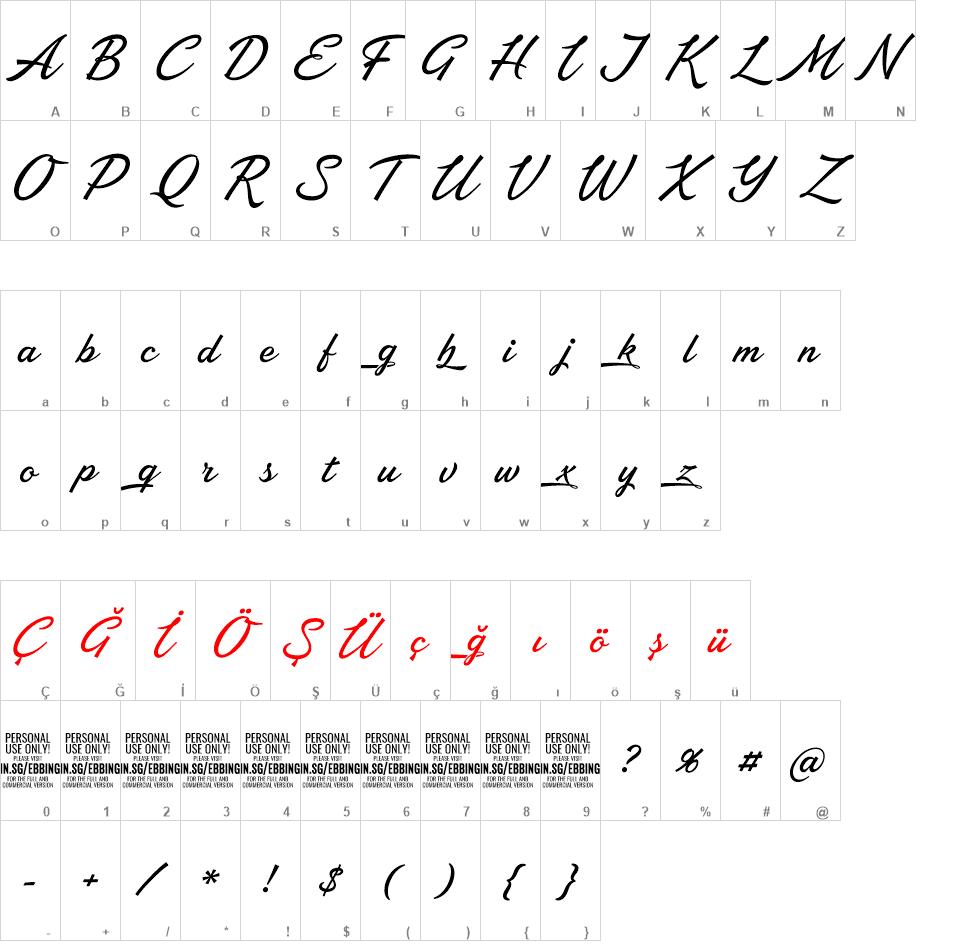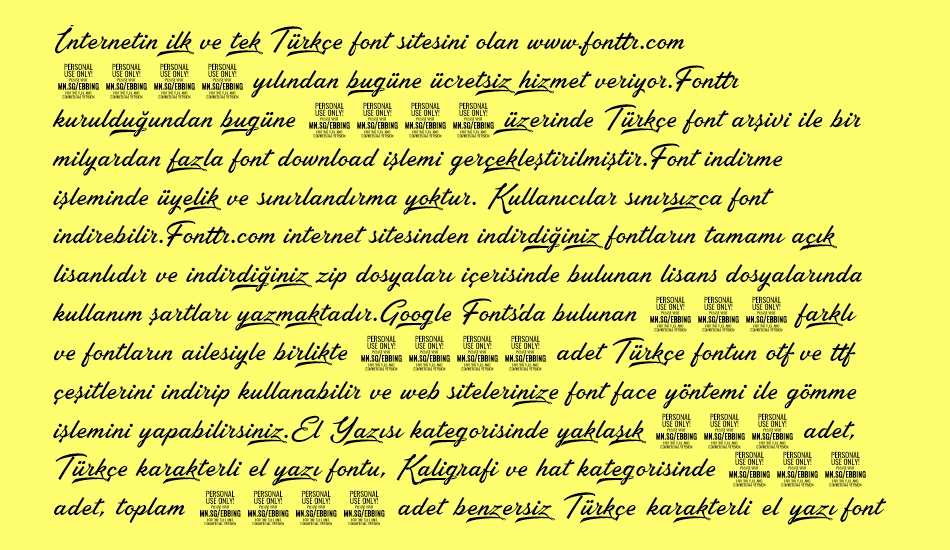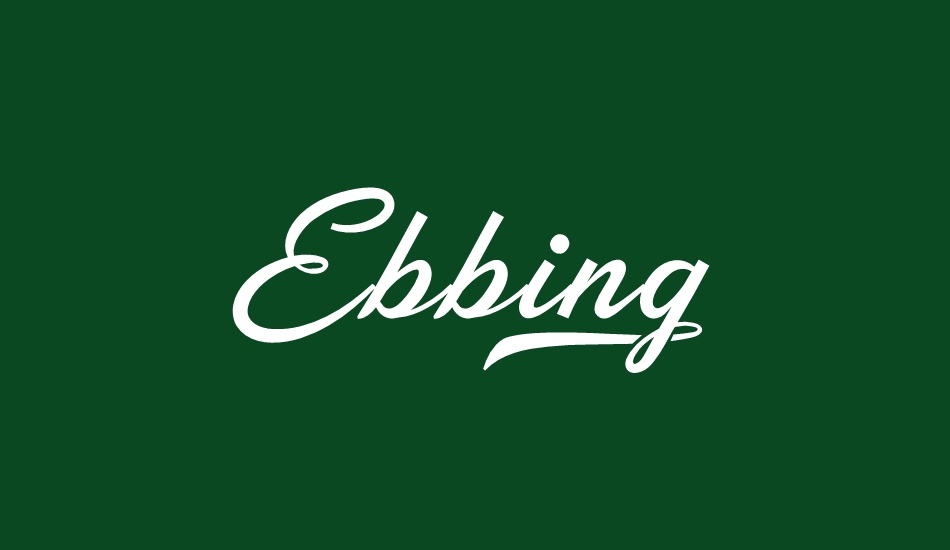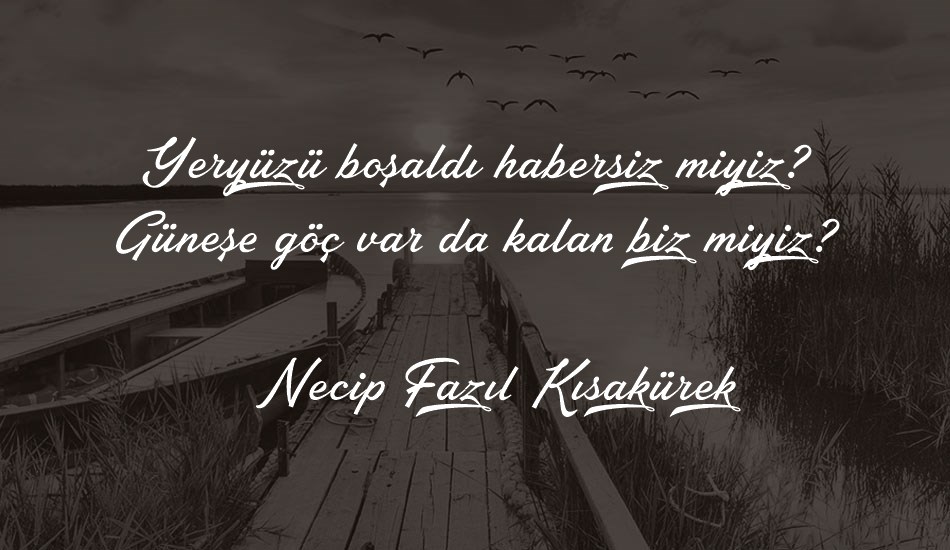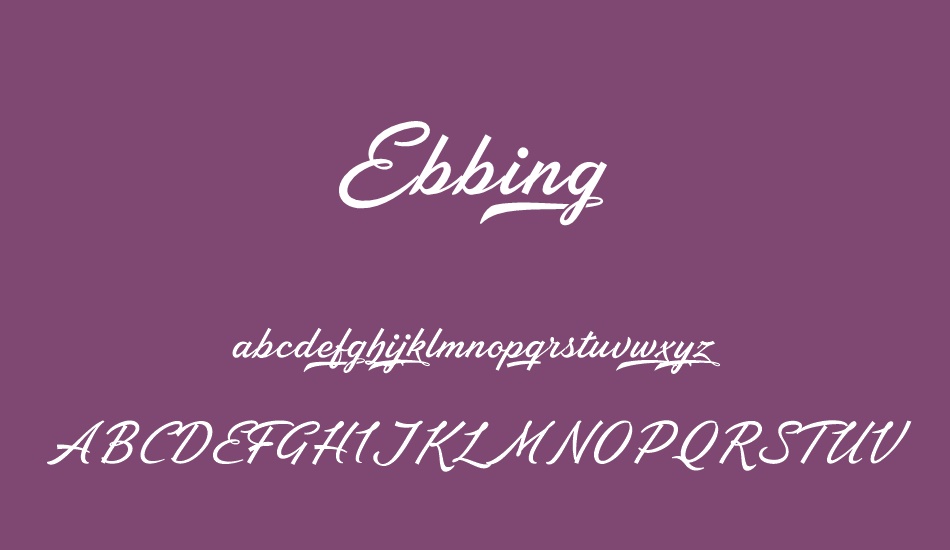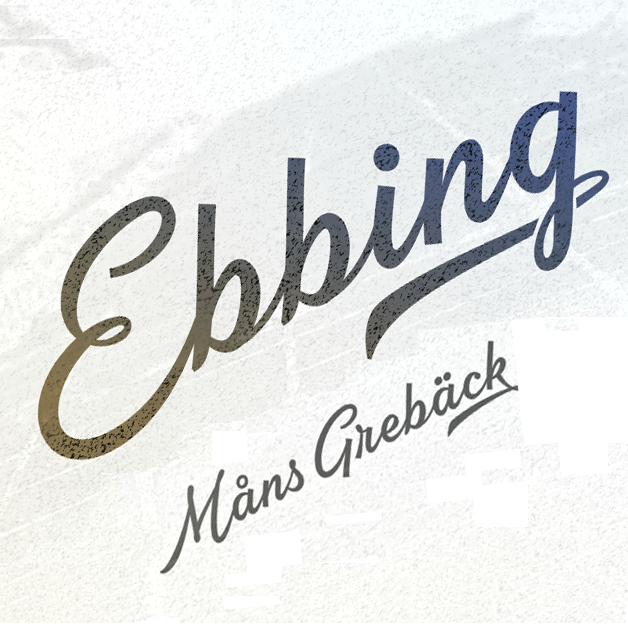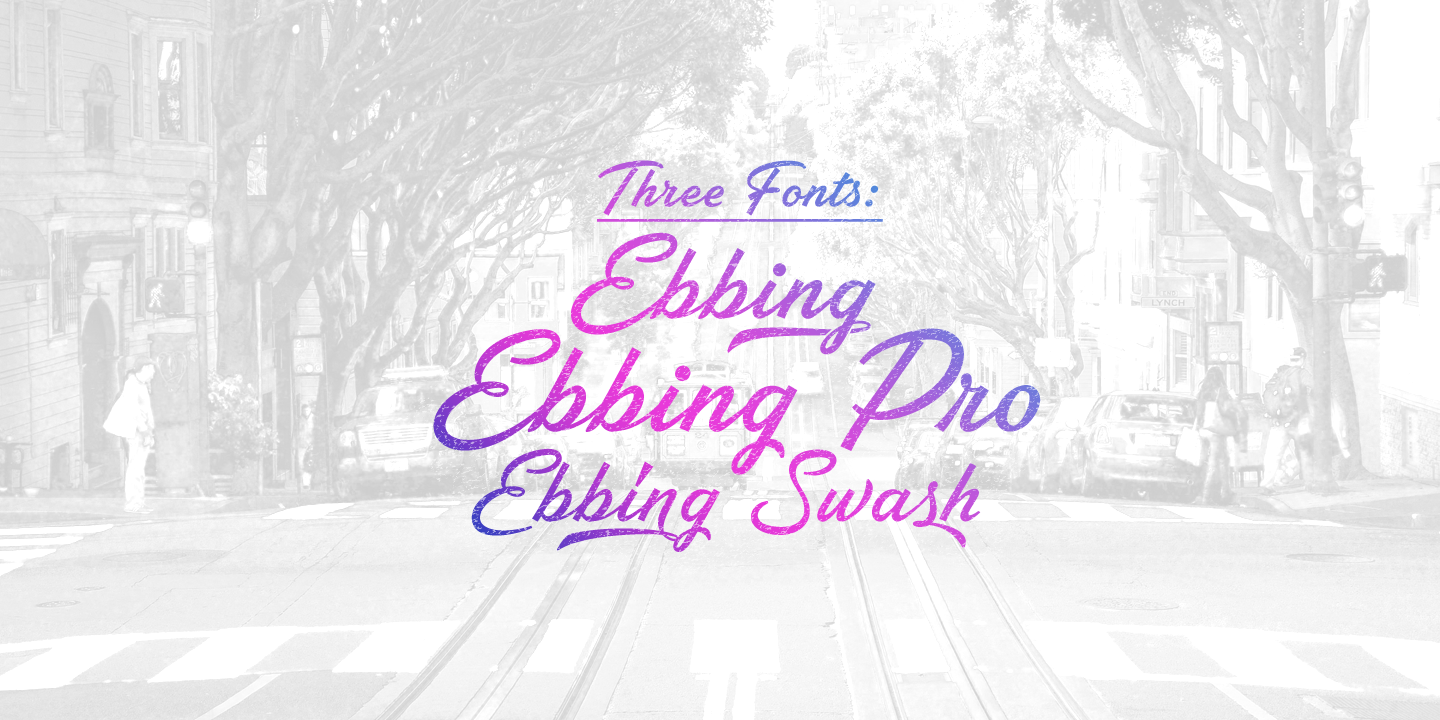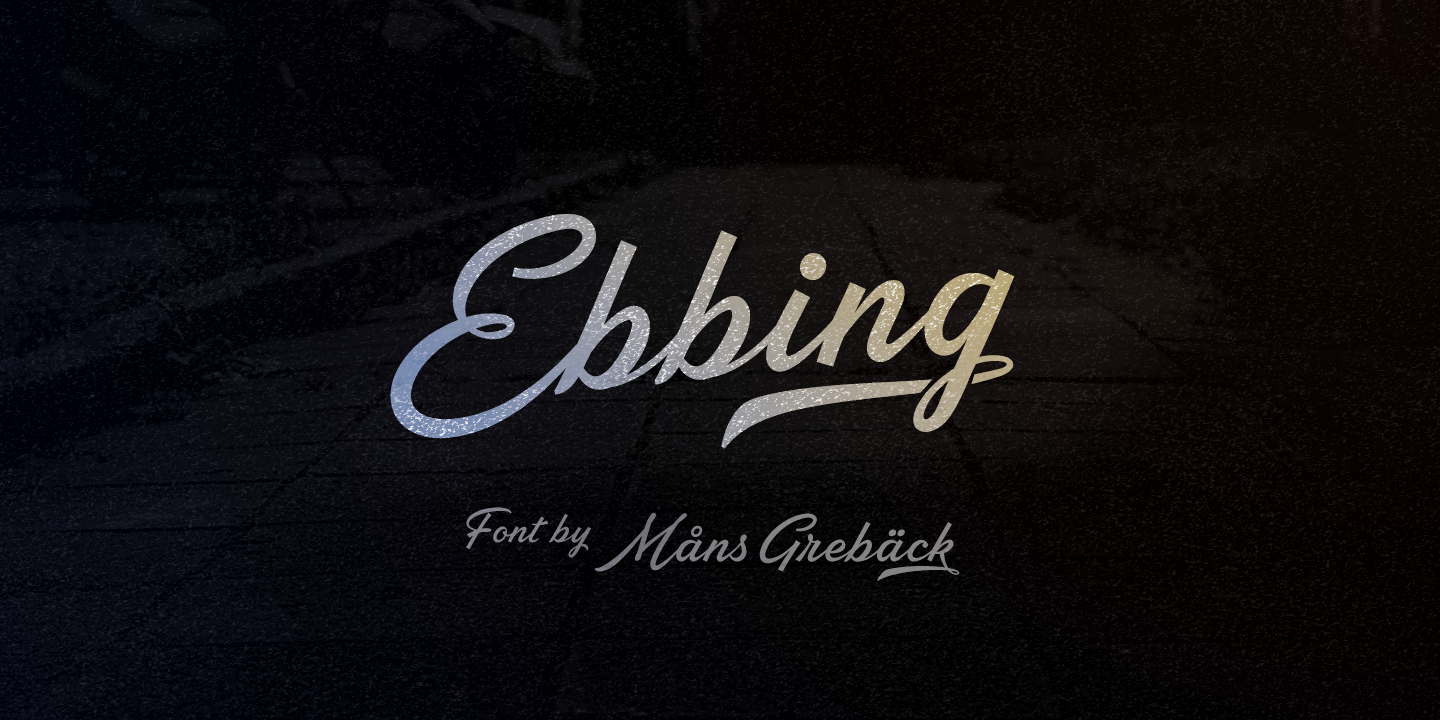
Ebbing font
Use ] [ to make swashes. Example: Mans[
Ebbing font
Ebbing is decorative typeface, created by M?ns Greb?ck in 2018.
Created to fit into vintage logotypes and headlines, this script type
has a hand-crafted look and genuine style.
The font contains contextual and stylistic alternates, ligatures and swashes.
With its hundreds of glyphs it supports a very wide range of languages.
Ebbing comes with three fonts: Ebbing, Ebbing Pro and Ebbing Swash.
Ebbing Pro is a clean, natural font with great OpenType-support, while Ebbing Swash
is its decorated counterpart that can be used to give the a logo specific attributes.